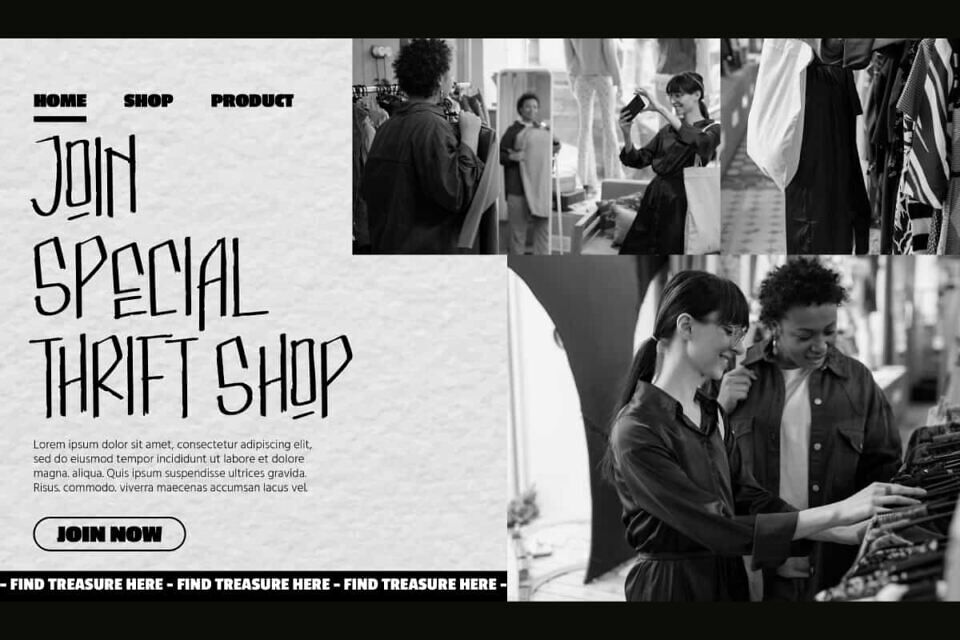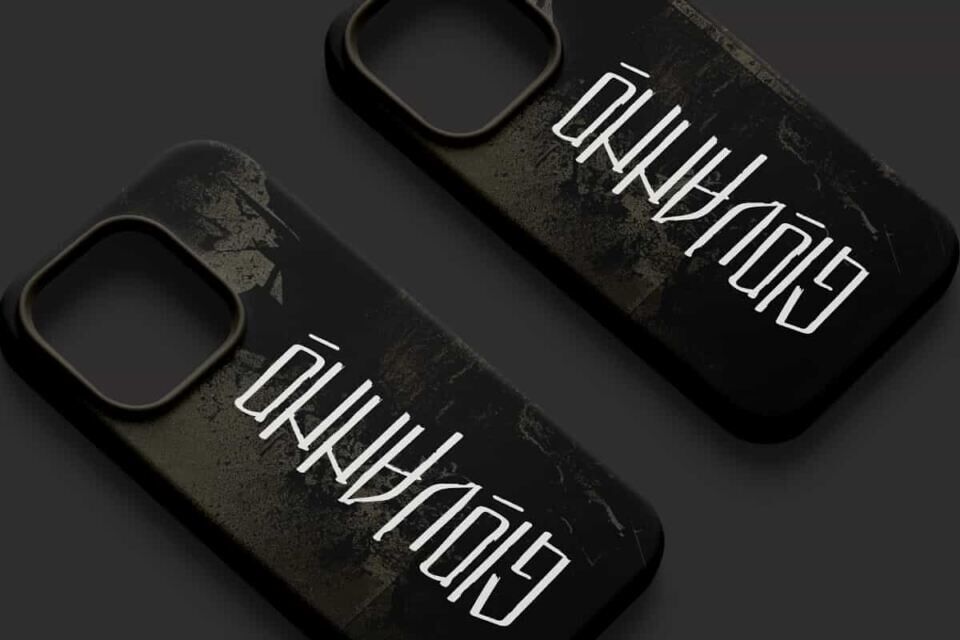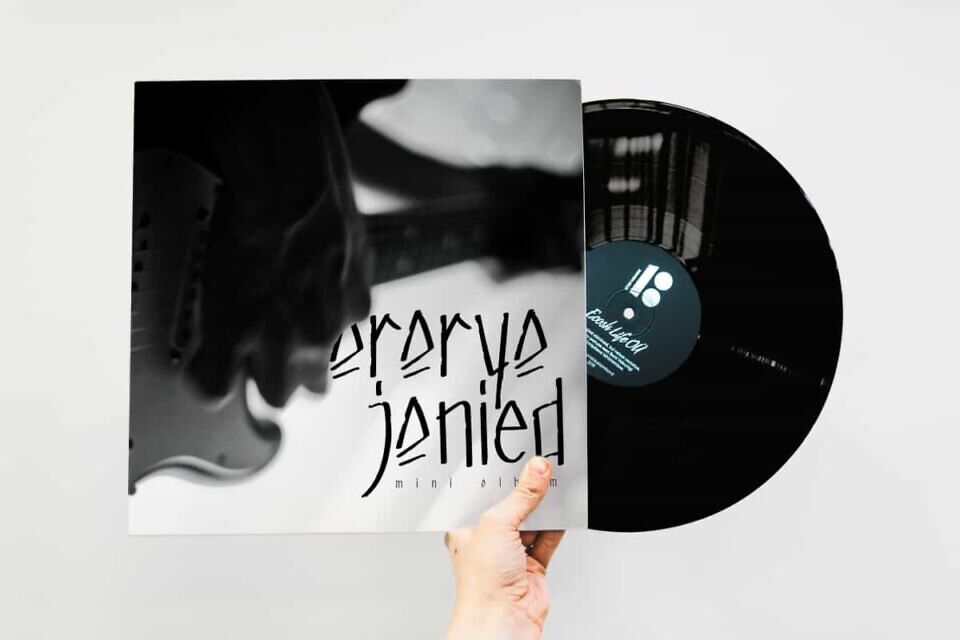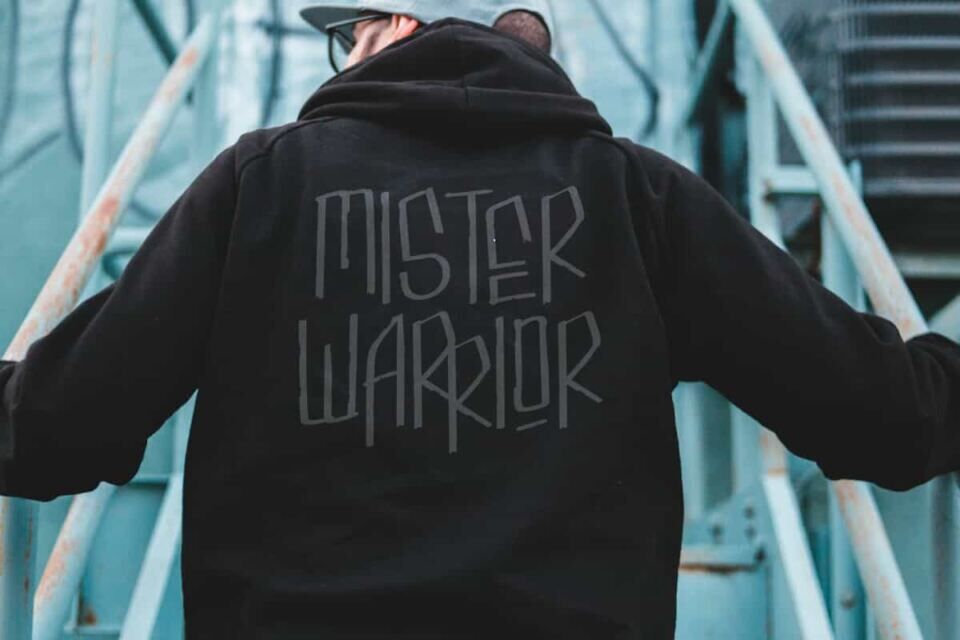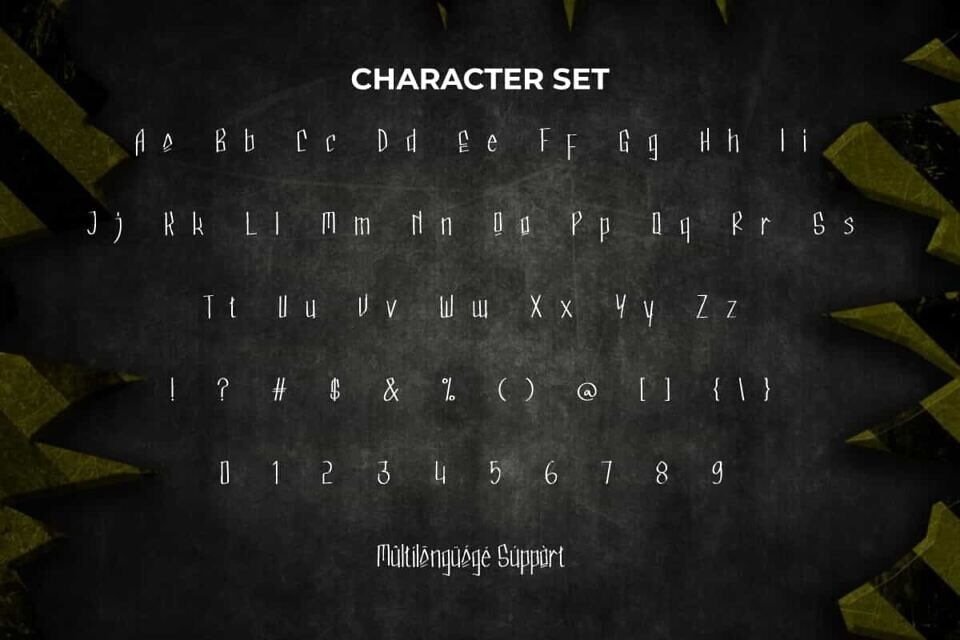
Mister Warrior Font is a unique and mysterious brush display font, created by NoahType. This font has thin lines with an interesting concept so it won’t make your design look boring. It will be good for any projects, such as custom design, invitation, label, marketing material, poster, brand image, cover, printing, product packaging, quotes, signage, stationery, website, and many more!
Mister Warrior Font includes full set of ALL CAPS for Uppercase and Lowercase Basic Characters, Numerals, Punctuation, and Symbol. This creepy font will make your design awesome and also a perfect choice for many industries, such as fashion, accessories, game, movie, music, advertising, event or festival, art, café, printing, publishing, etc.